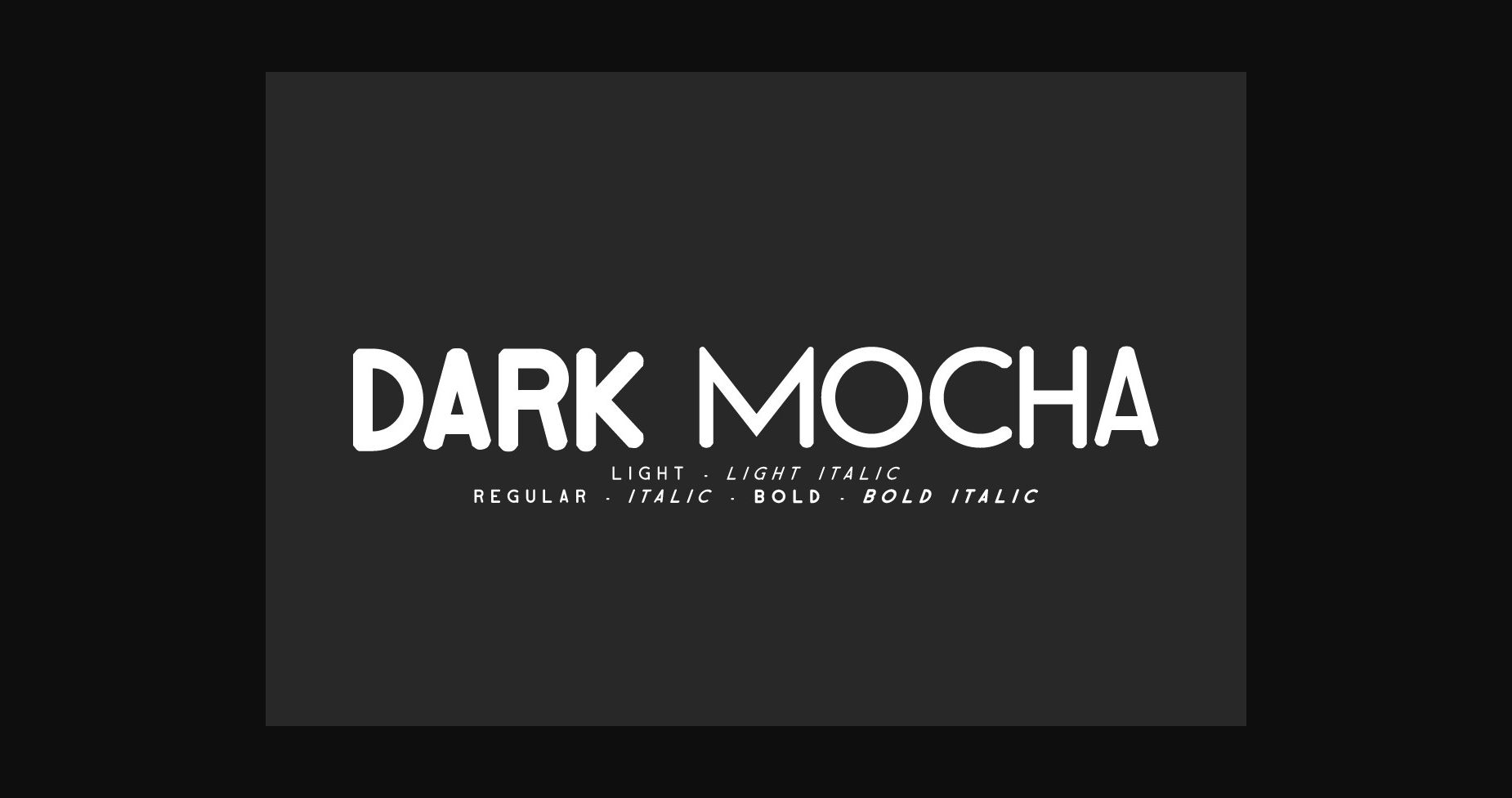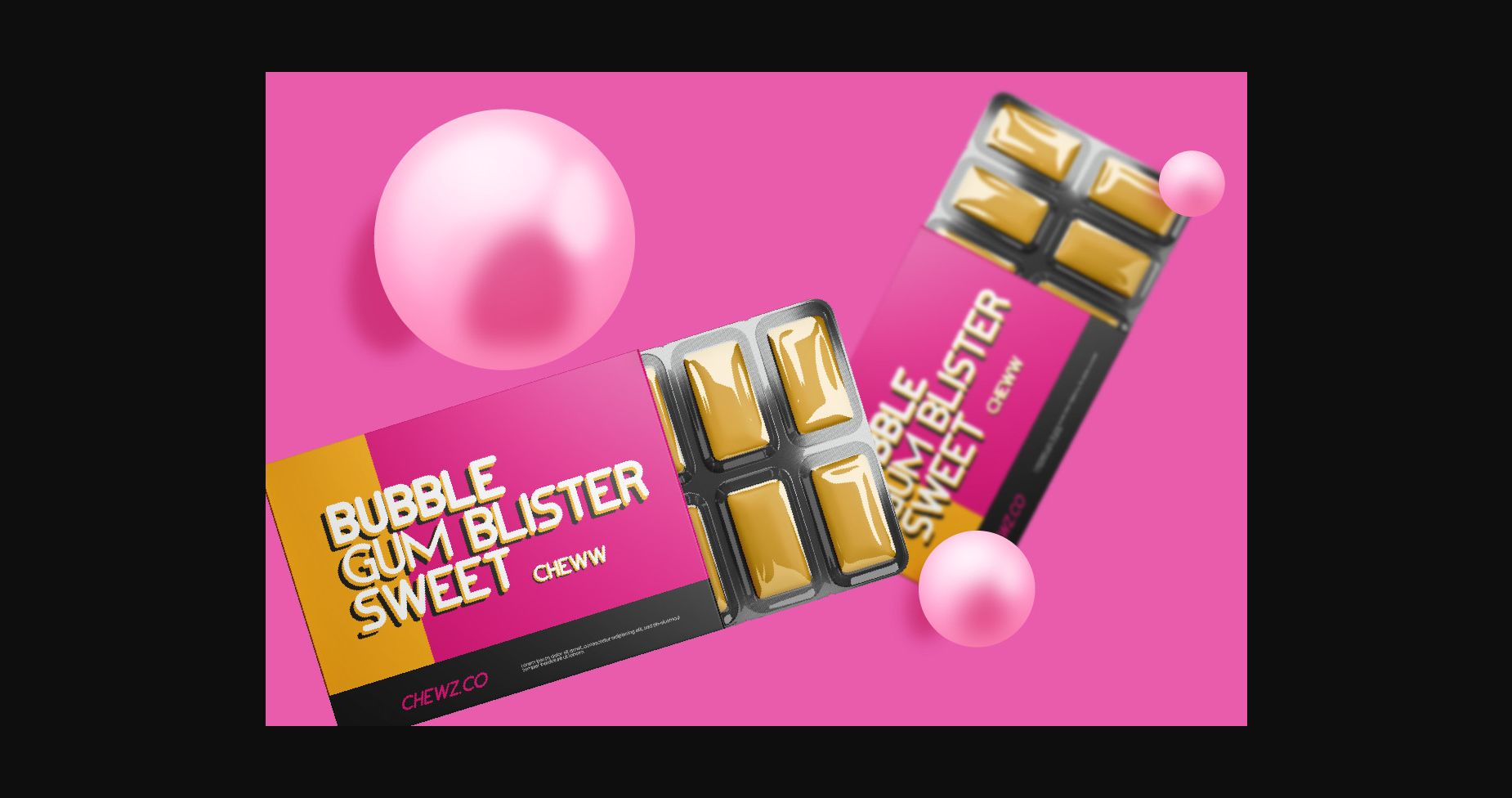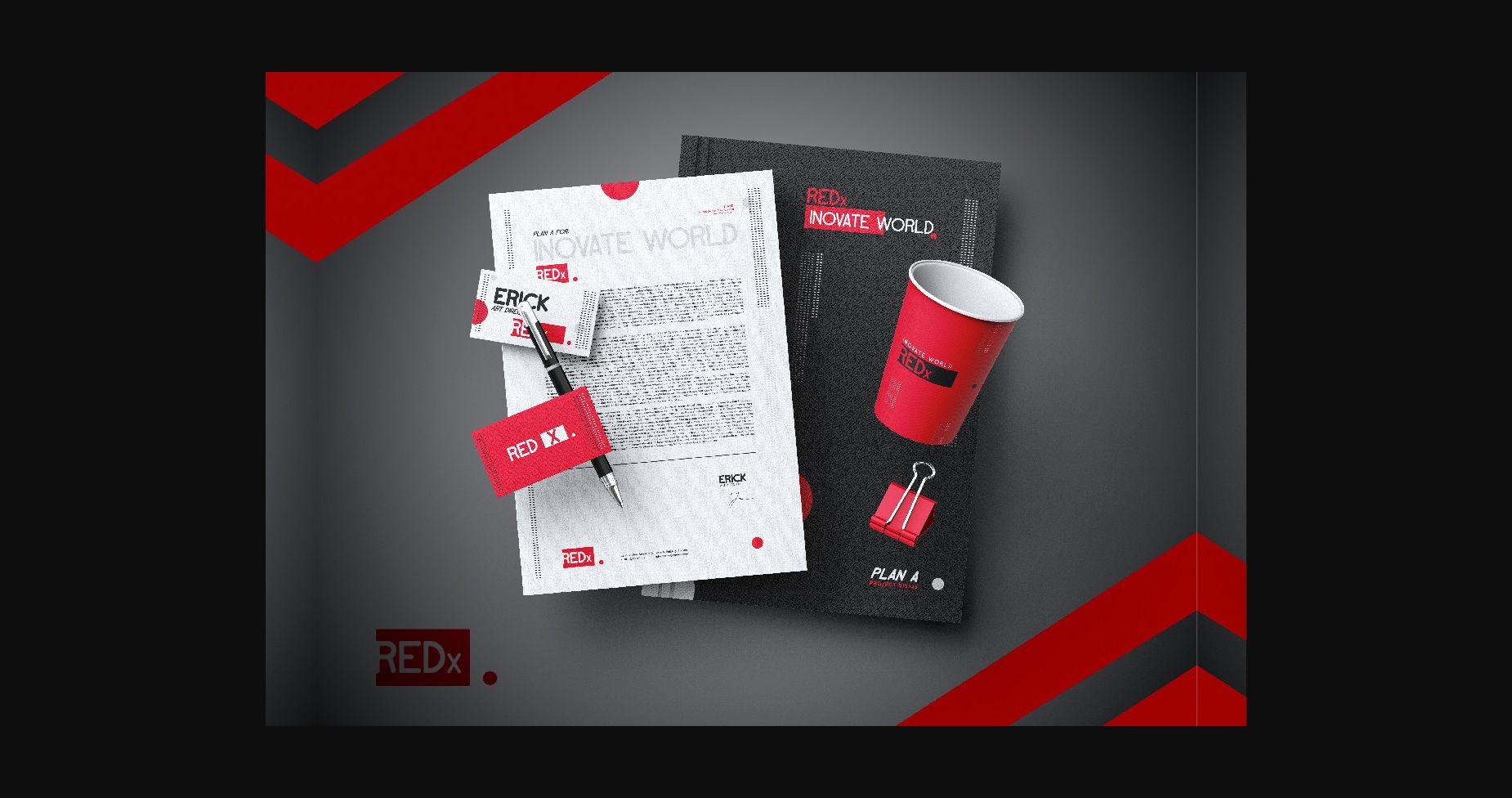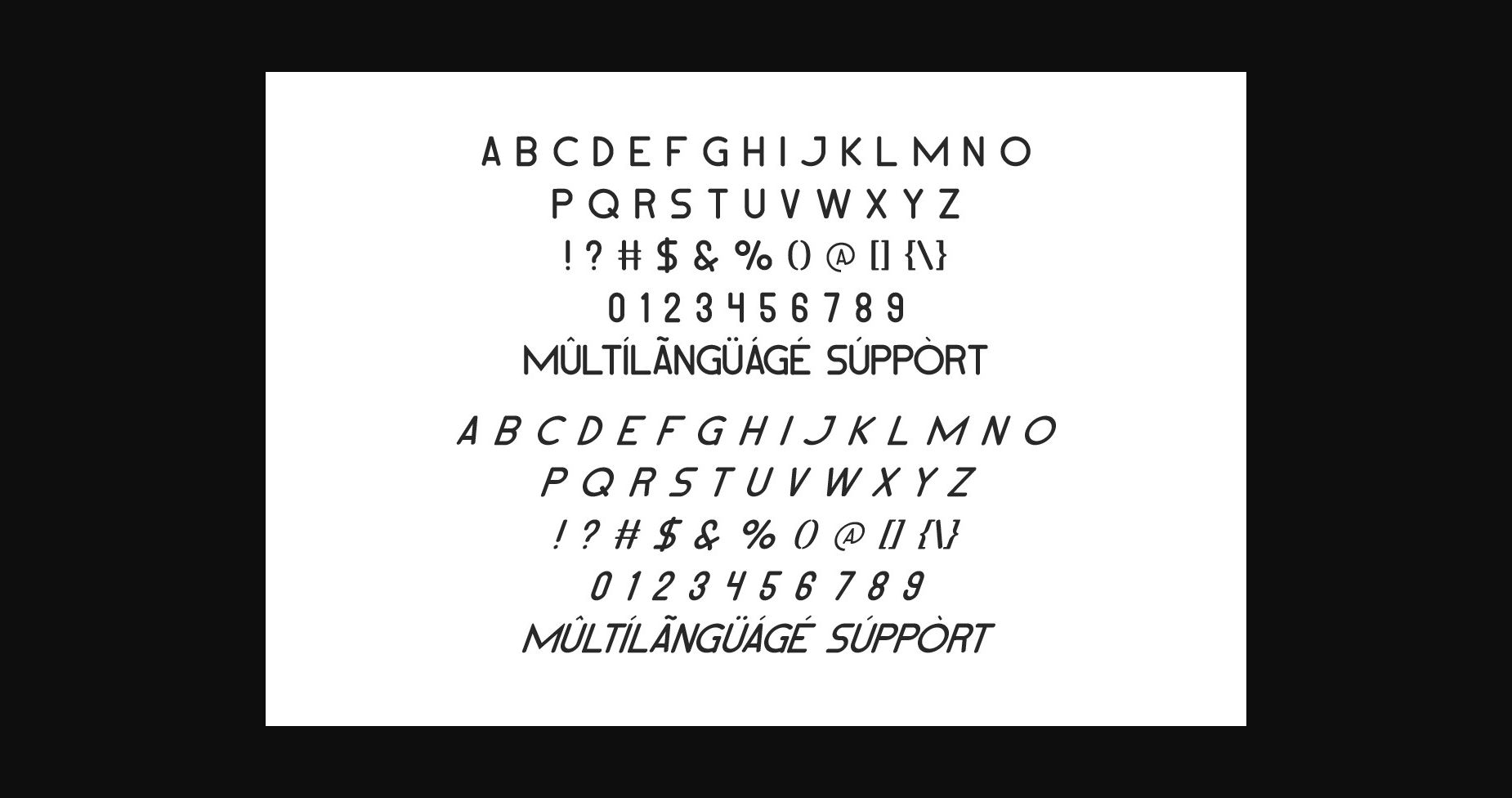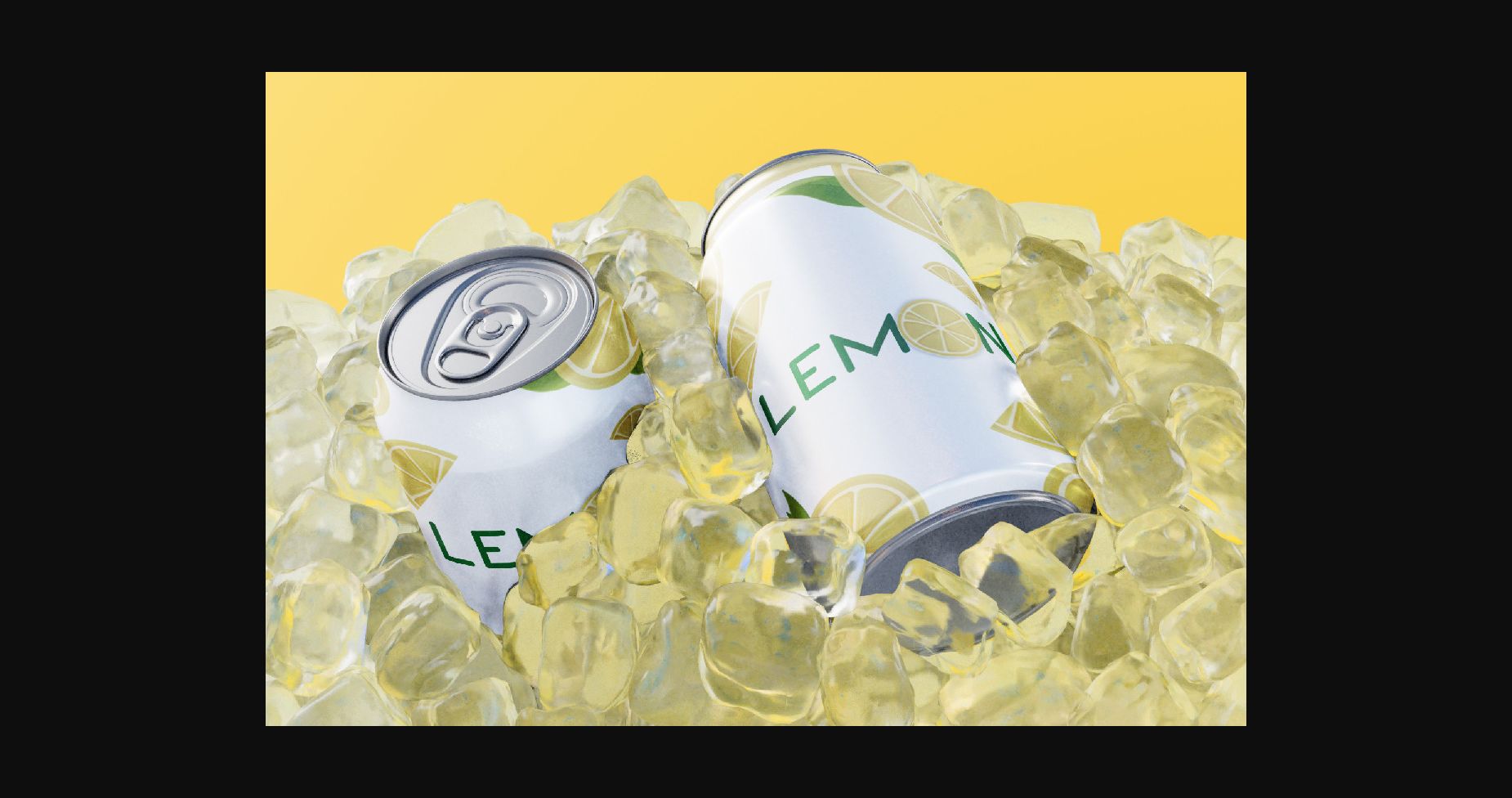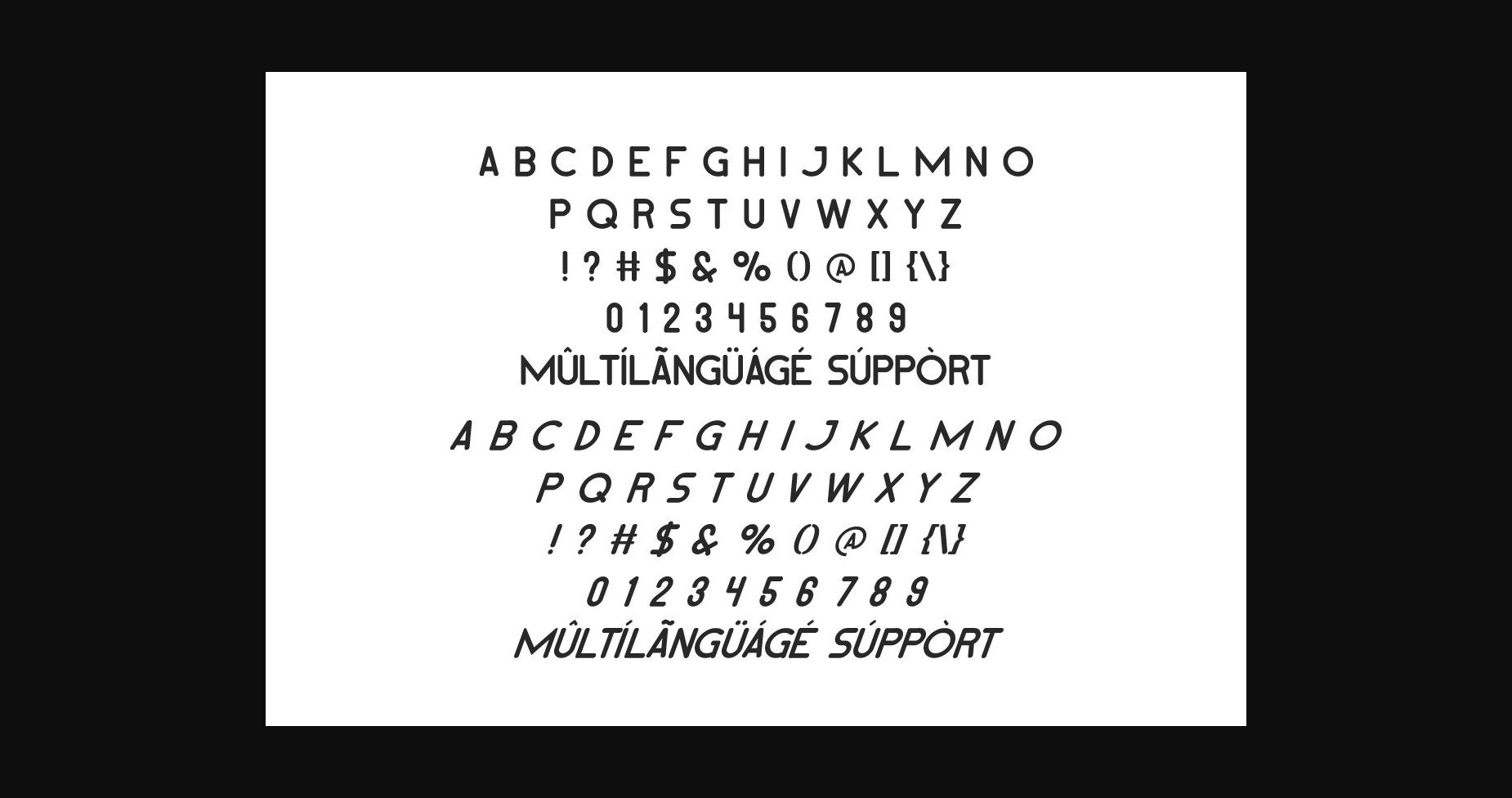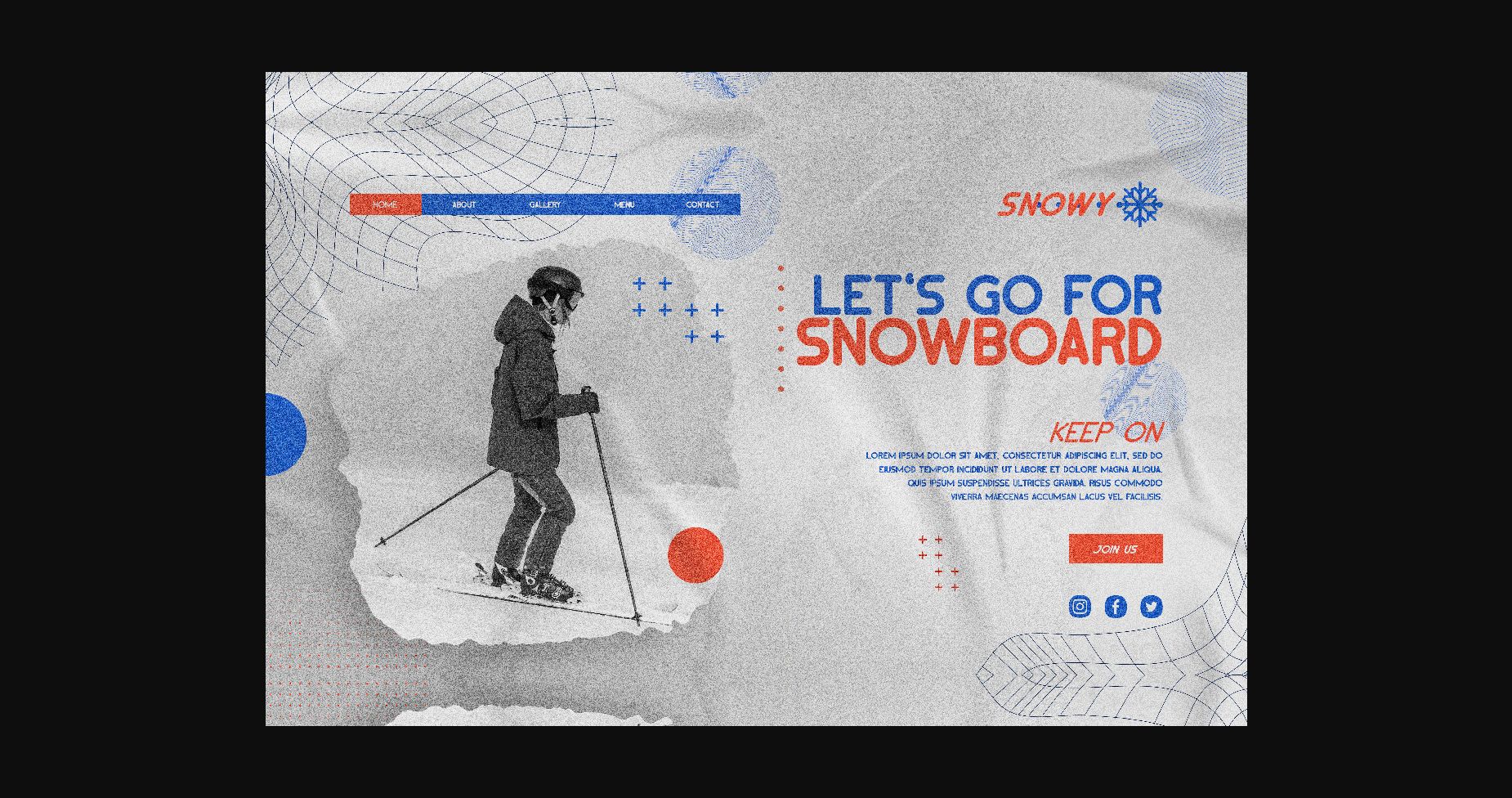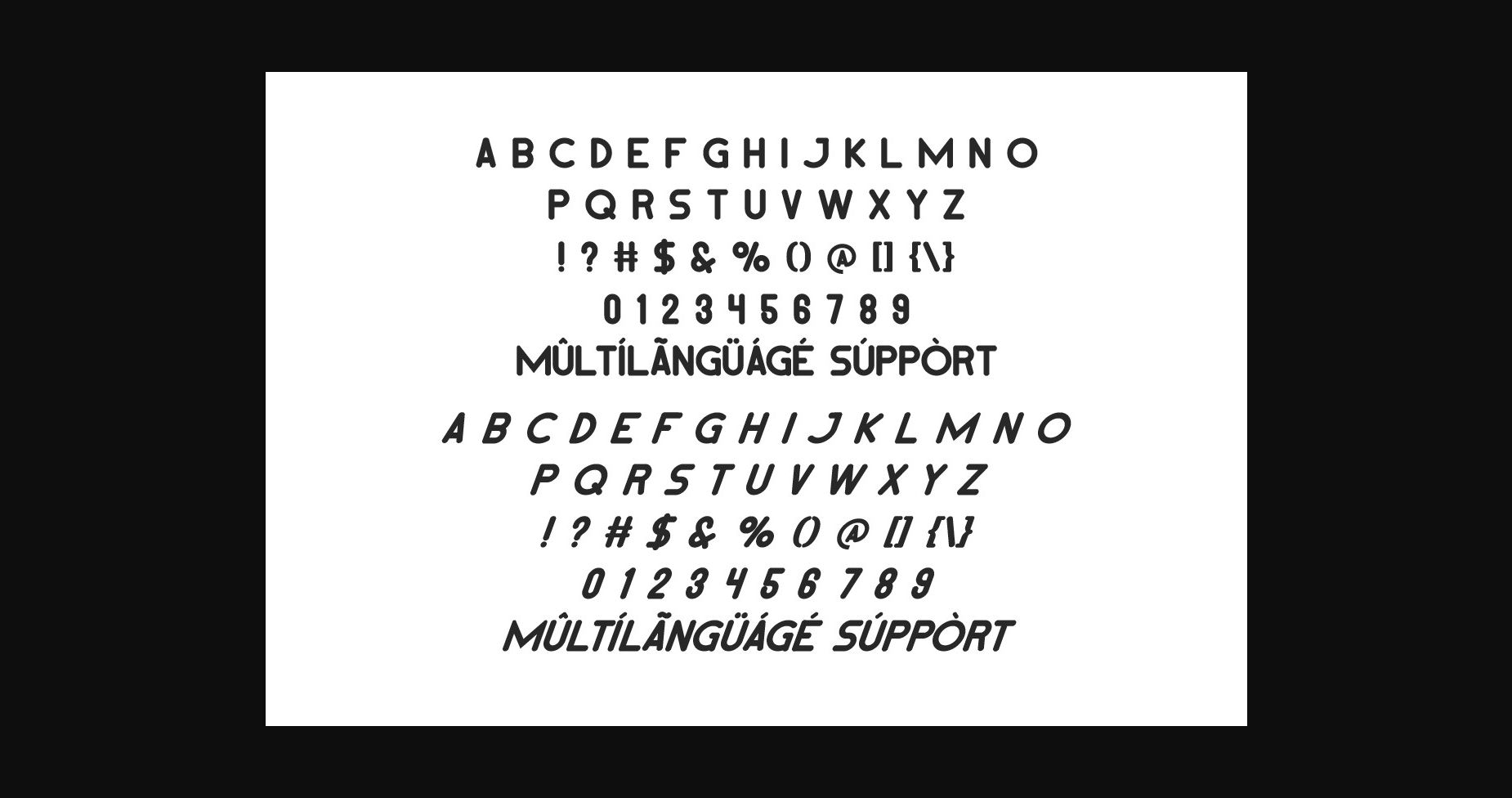
Dark Mocha Font
About Dark Mocha Font
Dark Mocha Font is a casual sans serif display font with six different styles: Regular, Italic, Light, Light Italic, Bold, and Bold Italic. The font family is well designed with All caps font characters. Use this font to explore unlimited creativity in your designs!